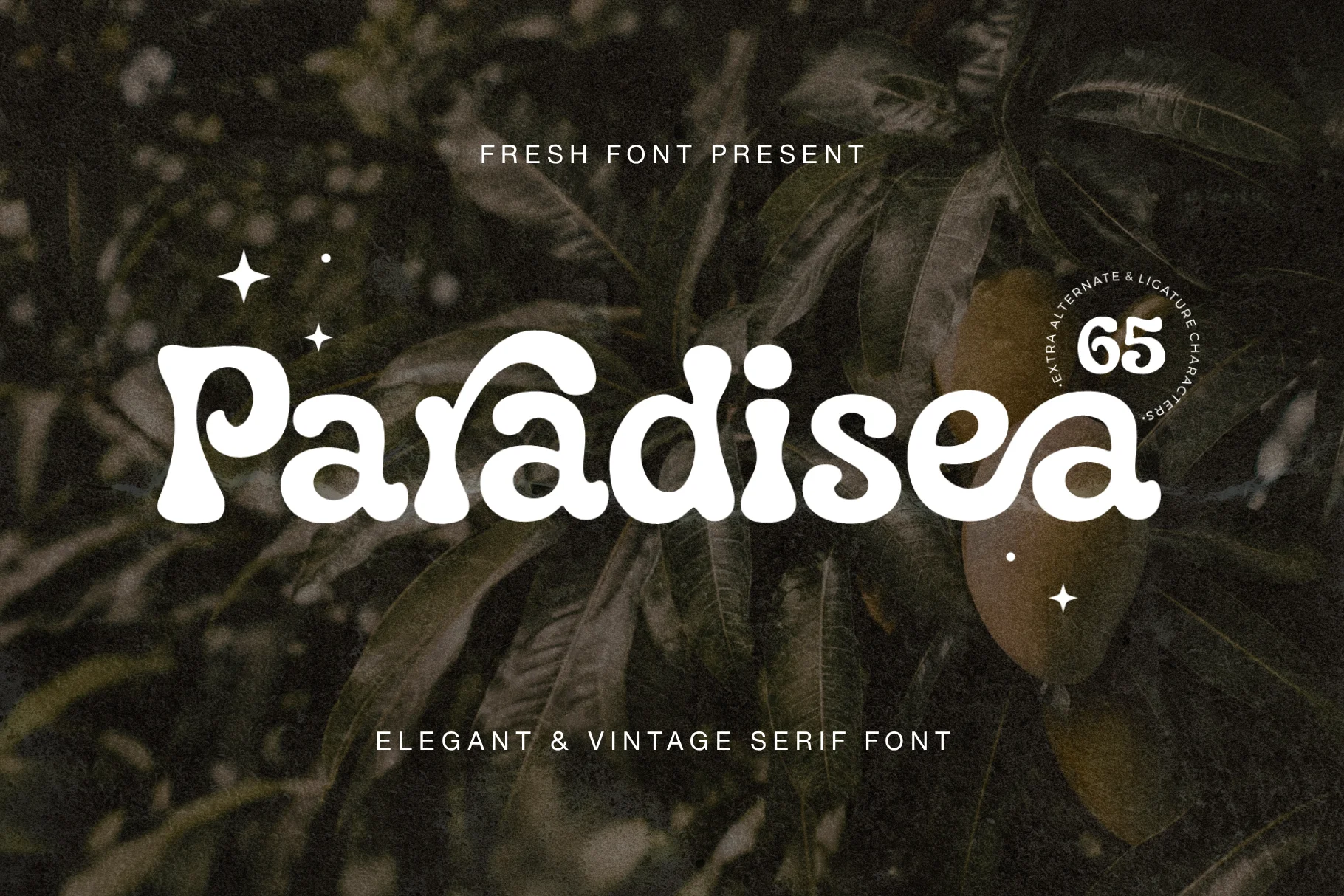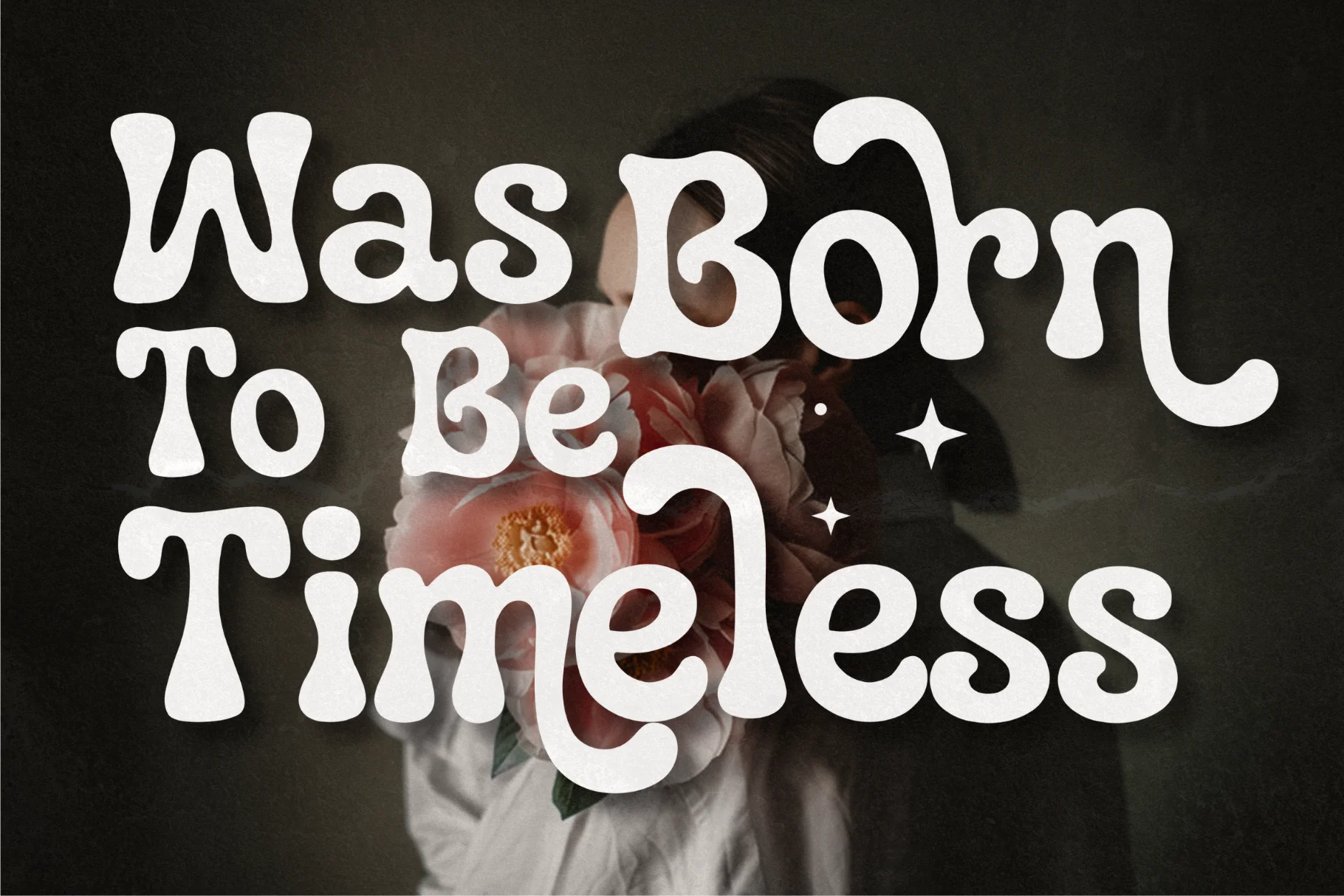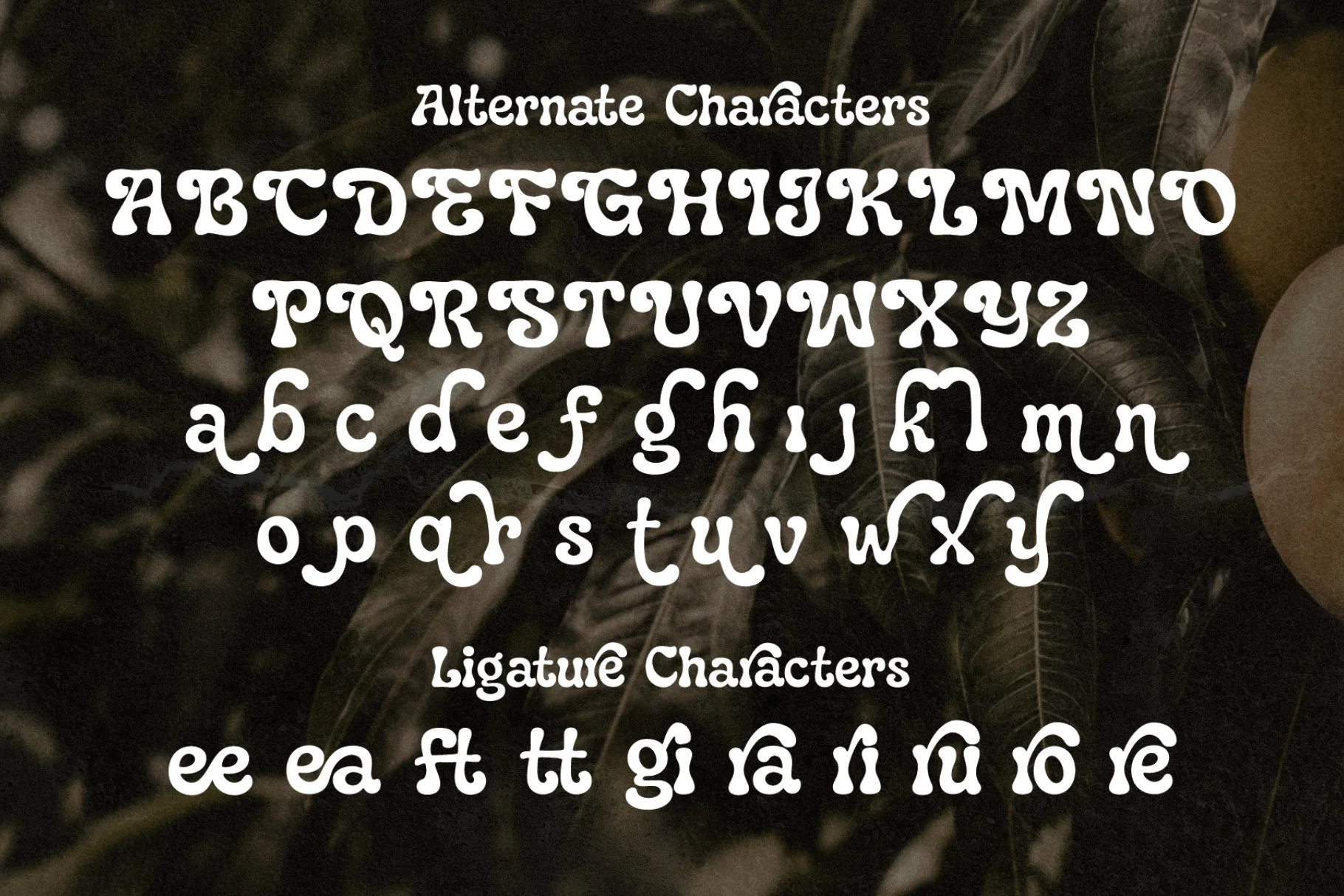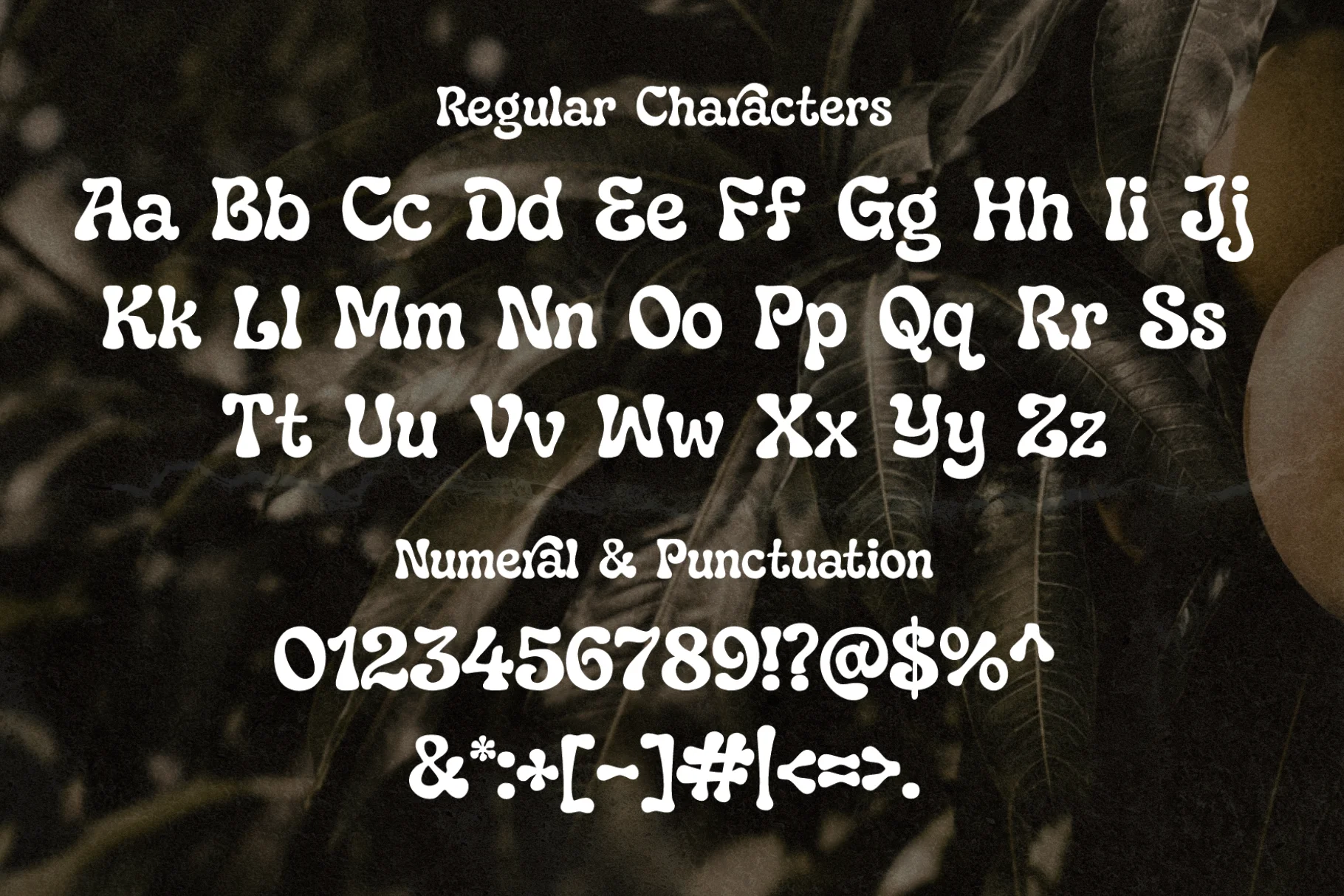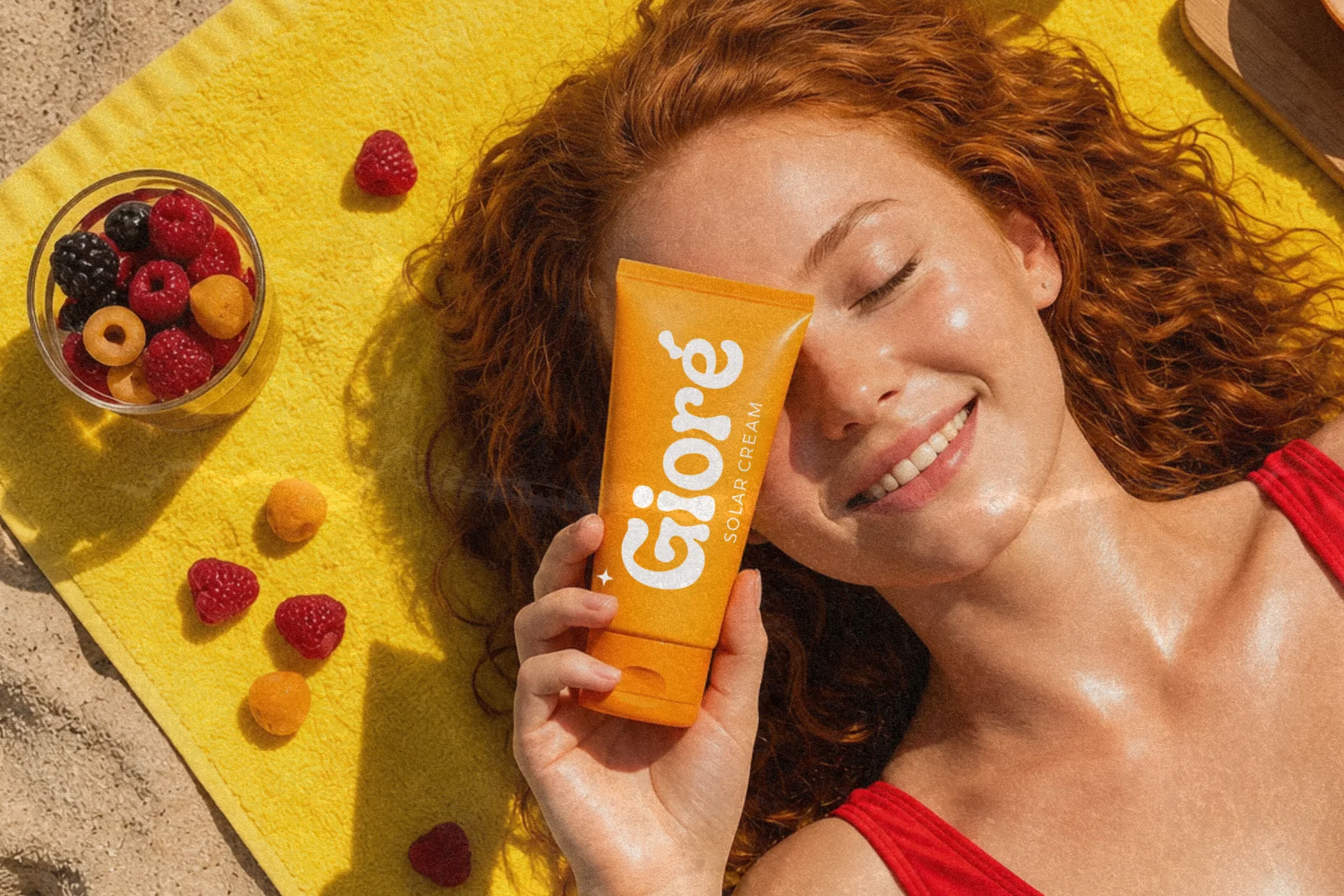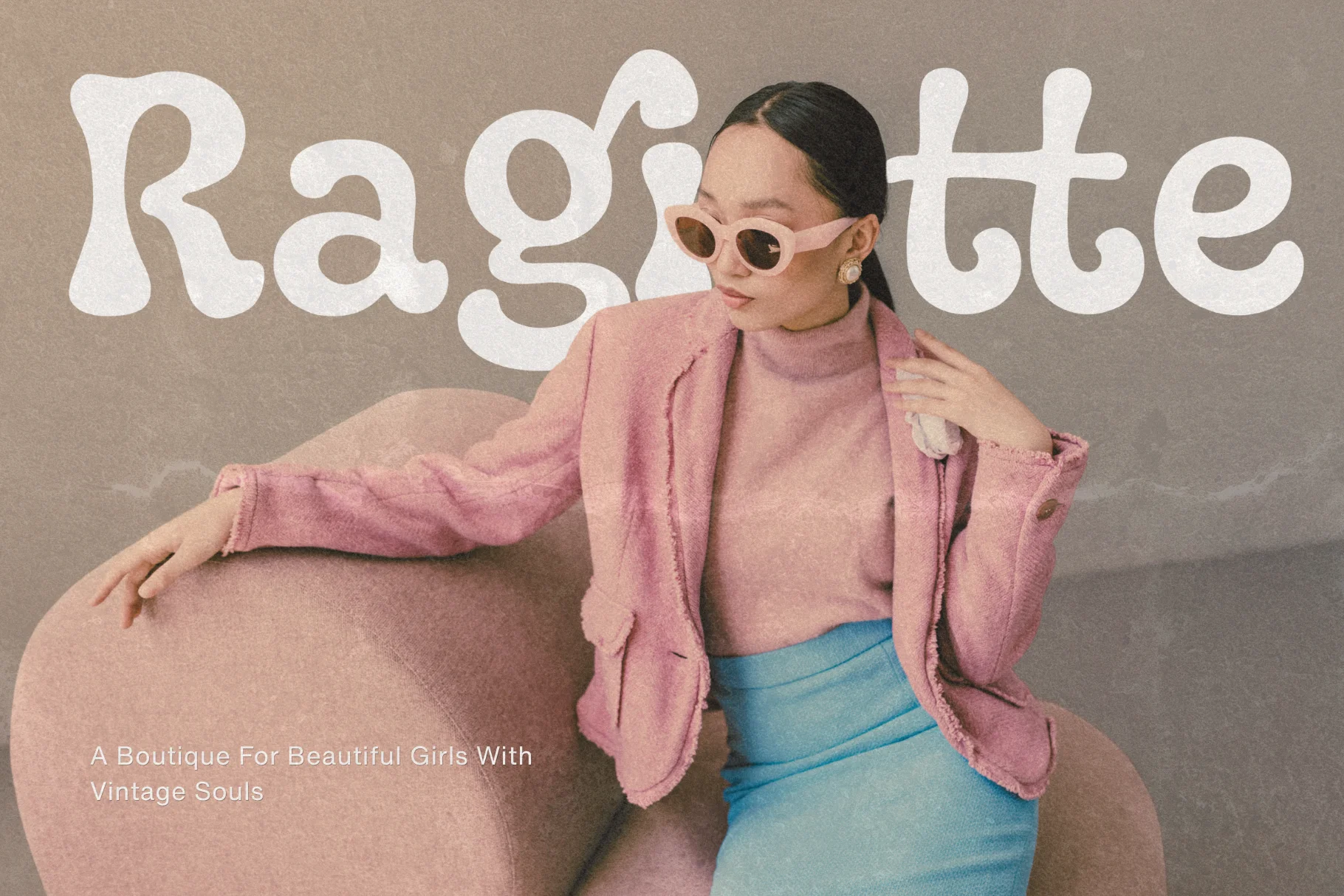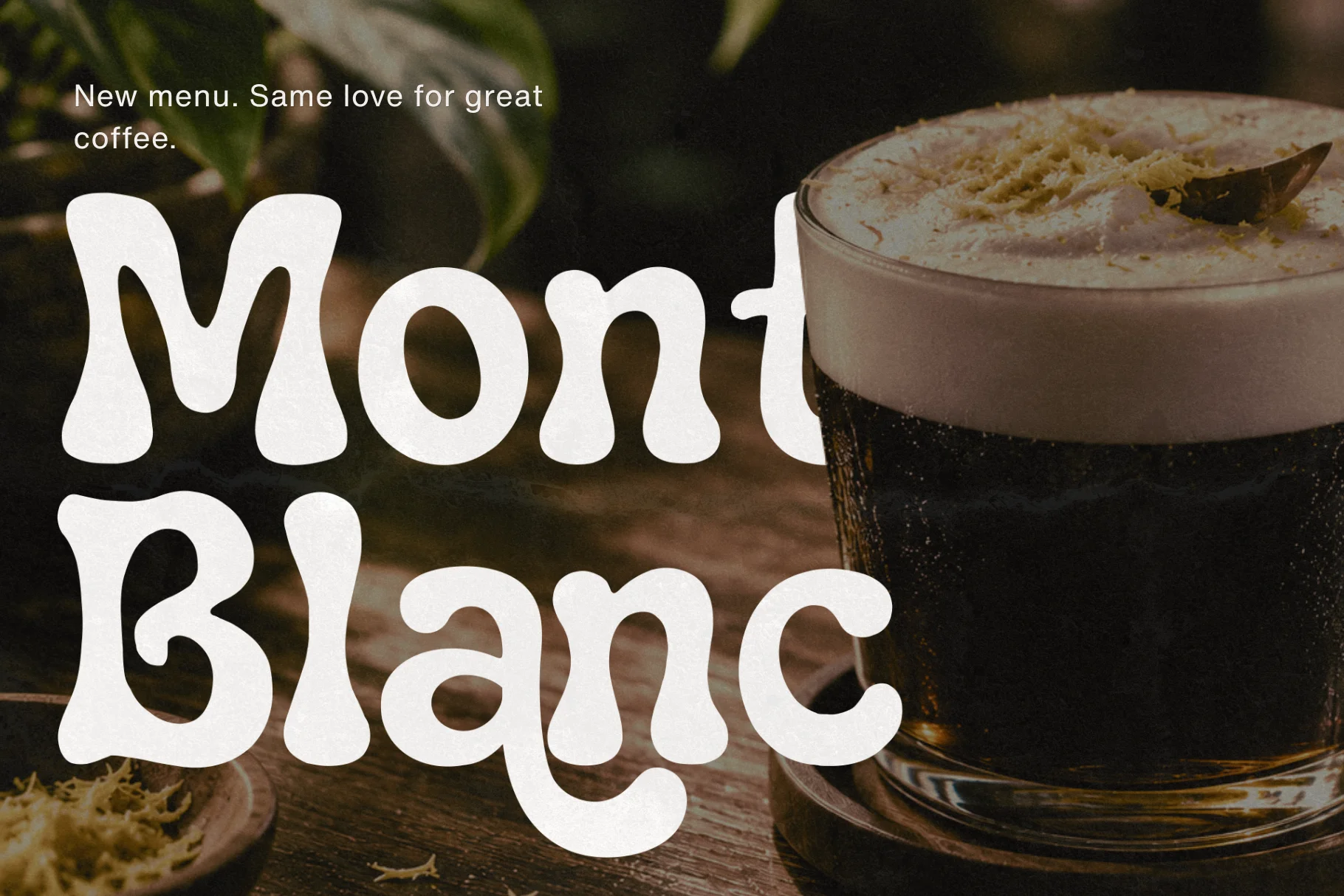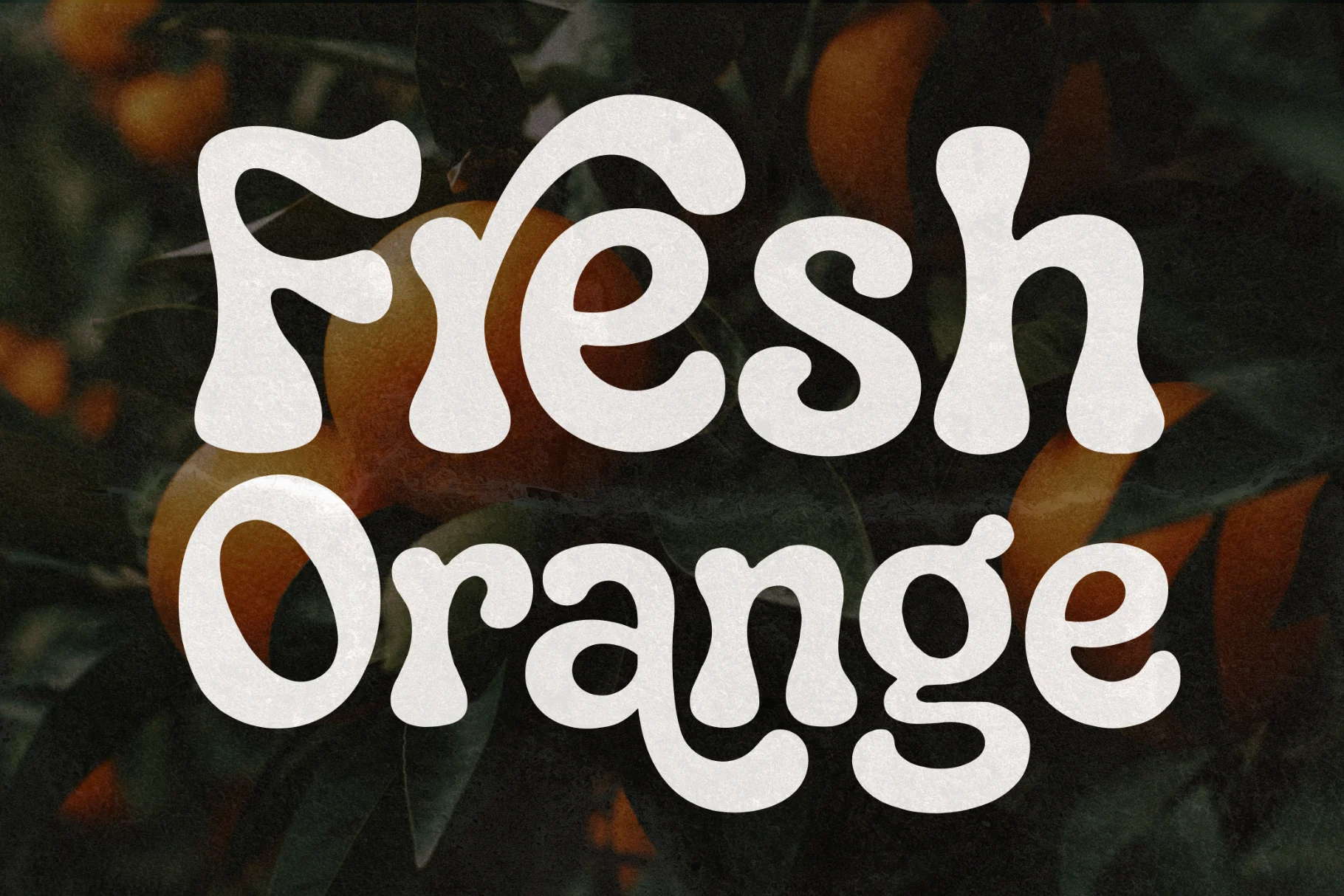
About Paradisea
Paradisea is an elegant vintage serif font with a refined editorial character and a timeless sense of style. Its classic serif structure gives the typeface a sophisticated foundation, while its vintage-inspired personality adds warmth, character, and a subtle nostalgic quality to contemporary typography.
Designed for both expressive display work and polished brand communication, Paradisea fits naturally into visual identities that call for an established, graceful, and distinctive typographic voice. It works especially well for branding, editorial layouts, packaging, invitations, fashion graphics, and other designs where typography needs to balance classic form with vintage character.
The font can create a composed and sophisticated impression in larger headlines while remaining versatile enough for supporting typographic elements. Its combination of traditional serif structure and decorative OpenType features gives designers additional control over the personality and rhythm of their lettering.
Elegant Vintage Serif Character
Paradisea draws from the visual language of classic serif typography while introducing a distinctly vintage atmosphere. Its letterforms provide the contrast and structure associated with refined serif design, making the typeface suitable for sophisticated headlines, names, titles, and brand statements.
The vintage character adds personality without making the typography feel overly ornamental. This balance allows Paradisea to move between classic editorial compositions and more expressive branding applications, particularly when paired with generous spacing and carefully selected supporting type.
Uppercase & Lowercase
Paradisea includes both uppercase and lowercase lettering, allowing designers to create varied typographic hierarchy across headlines, names, captions, and supporting text. The combination is useful for layouts where a display serif needs to transition naturally between prominent titles and more understated typographic elements.
Alternates & Ligatures
Alternates and ligatures provide additional typographic variation within the Paradisea character set. These features can be used selectively to refine individual words, create a more distinctive rhythm, or introduce subtle stylistic changes to display typography while keeping the overall design cohesive.
Numbers & Punctuation
The typeface also includes numbers and punctuation, making it suitable for practical display applications such as dates, prices, editorial information, packaging details, event materials, and other compositions that combine decorative typography with supporting content.
Applications for Refined Vintage Design
- Luxury and lifestyle branding
- Editorial layouts and magazine graphics
- Packaging and product identity
- Wedding and formal invitations
- Fashion and boutique visual identities
- Elegant vintage serif style
- Classic serif structure
- Refined editorial character
- Vintage-inspired visual personality
- Uppercase lettering
- Lowercase lettering
- Numbers included
- Punctuation included
- Alternates included
- Ligatures included
Why Designers Love Paradisea
Paradisea gives designers a classic serif foundation with enough character to stand apart from purely traditional typefaces. Its vintage quality can add a sense of history and sophistication to branding, editorial work, packaging, and other projects where the typography needs to communicate a considered visual identity.
The included alternates and ligatures provide another layer of flexibility, allowing designers to adjust selected letter combinations and introduce subtle variation. This is particularly useful for logos, names, headlines, and other prominent text where small typographic details can influence the overall composition.
A Timeless Vintage Statement
Paradisea brings elegant serif typography and vintage character together in a versatile typeface for refined visual communication. Its structured forms and additional typographic features make it suitable for both restrained layouts and more expressive display compositions.
Use Paradisea for branding, editorial design, packaging, invitations, fashion graphics, boutique identities, and other projects that call for an elegant vintage serif font with a distinctive and timeless presence.